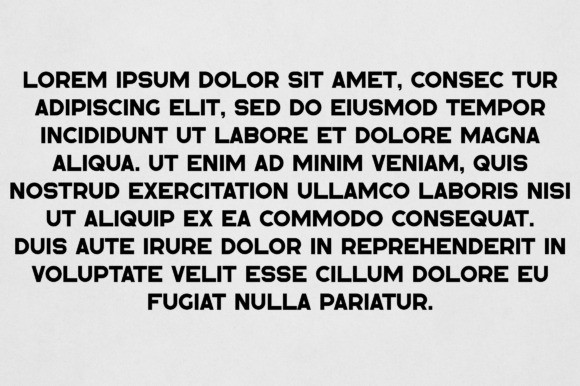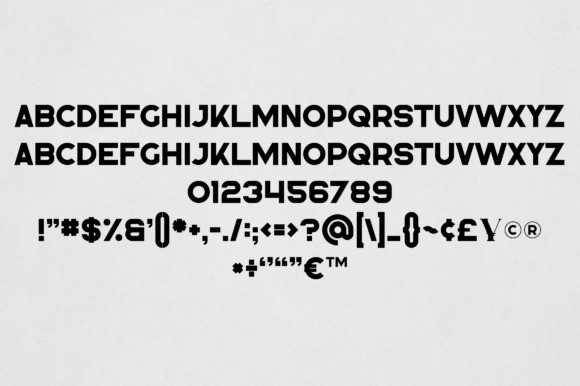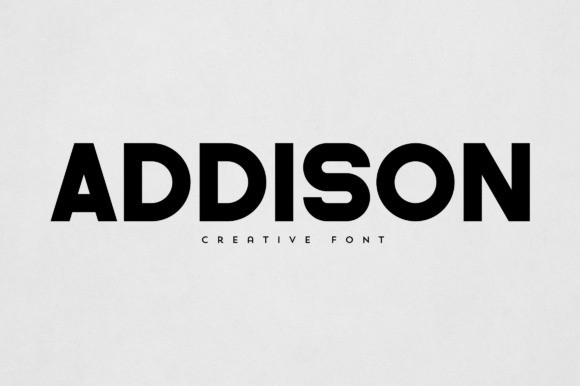
Addison Font
Addison Font is an elegant and versatile font that will make your typography truly unique! It will enchant every logo, branding, headline, or plain text!